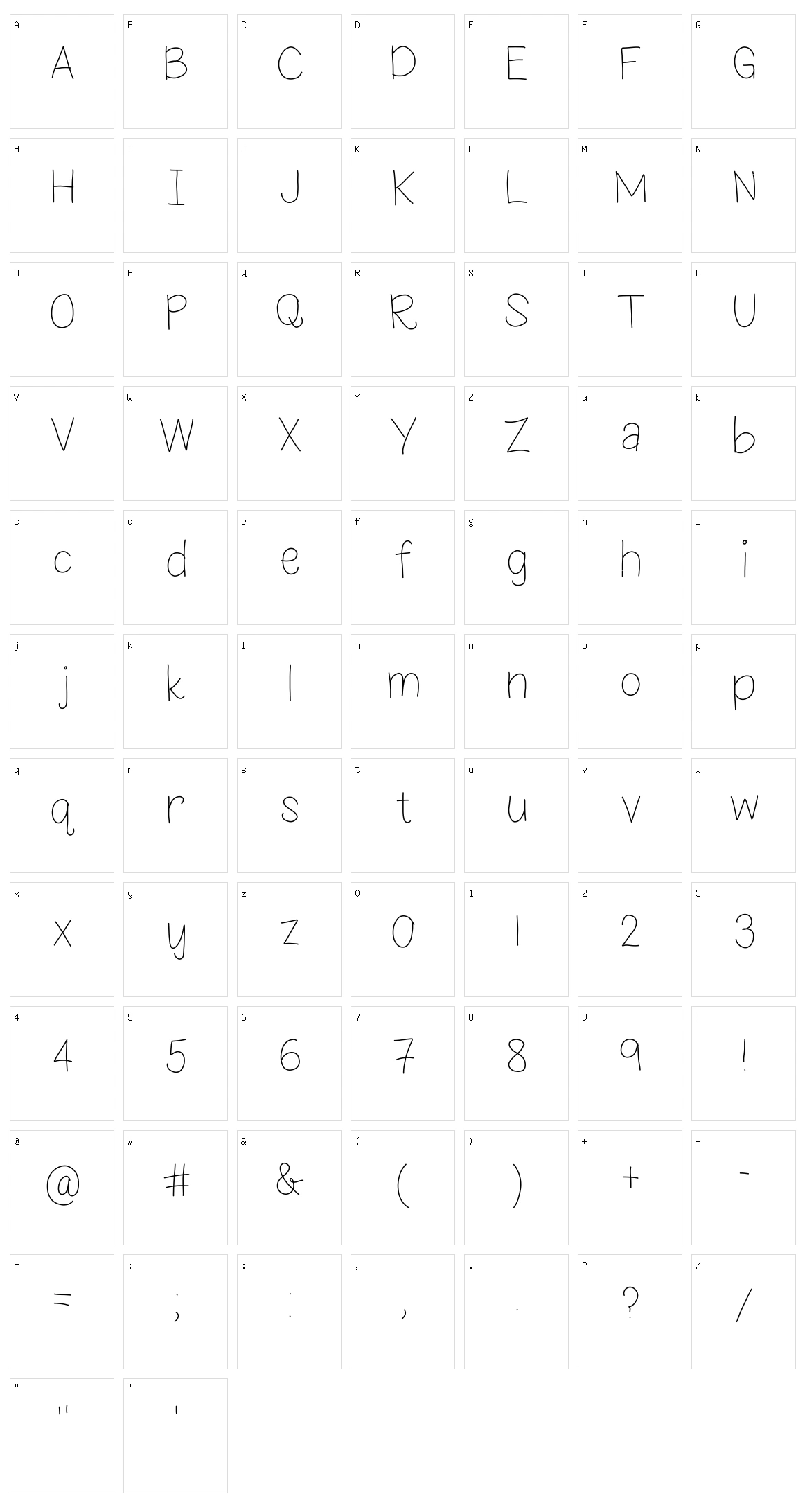
The free font Leaning on Everlasting Arms is carefully designed by Sabrina Schleiger, showcasing a thoughtful balance of creativity and usability and falls under the Script font style. When you download the ZIP file, it contains only 18.05 KB of font files, making it lightweight and quick to download. Please review the license details below to understand permitted usage and distribution rights. If license information is not available, we recommend using this font for personal projects only or contacting the author directly for commercial usage permissions.